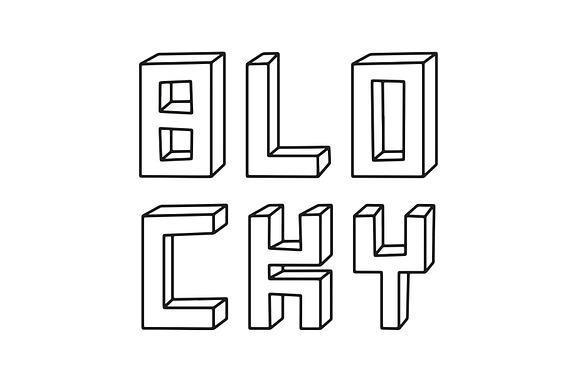
Blocky 3d Font
A playful 3D font, great for headlines and small texts. This font is created digitally, so big or small: it's always clean.
Letters Uppercase, lowercase and numbers
Punctuation +#@?!€,.:;’”[+]-
Blocky 3d Font by Fun Font Shop fits naturally into Branding, posters, packaging, typography.